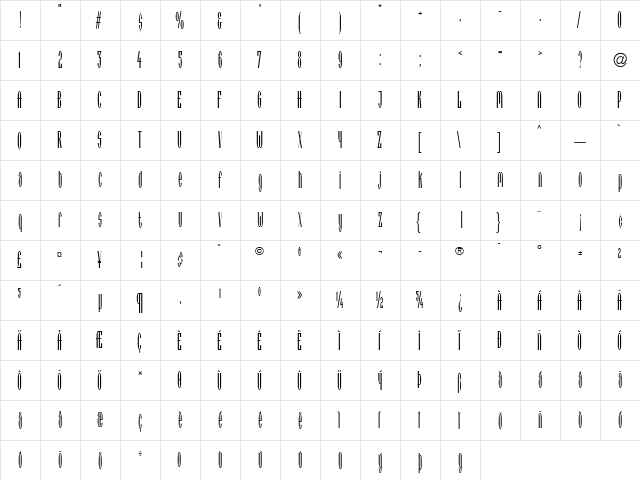
Arcadia LT A Regular Font Preview
Arcadia LT A Regular
Design Context for Arcadia LT A Typeface
Arcadia LT A takes a measured approach to typography — its balanced proportions and neutral character make it a reliable workhorse for both digital and print work. Its slender proportions lend an understated elegance to any composition.